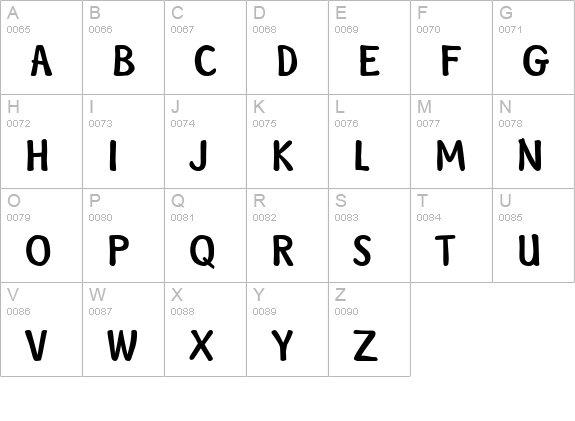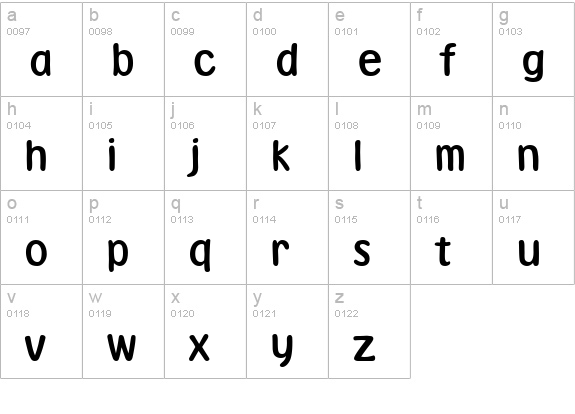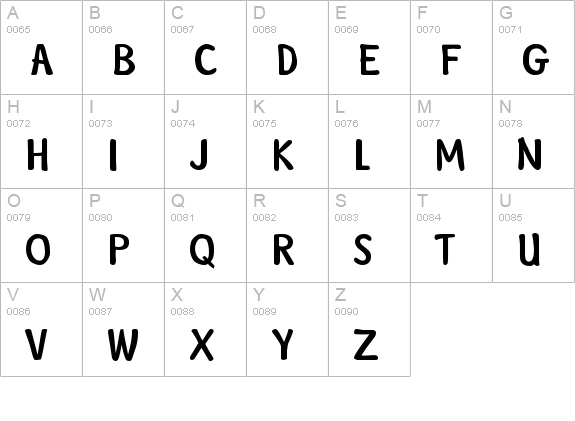
Pooh Font Details
Introducing the charming and whimsical Pooh font, a delightful typeface inspired by everyone's favorite bear. This playful and friendly font exudes a sense of warmth and nostalgia, perfect for adding a touch of sweetness to your designs. Whether you're creating invitations, greeting cards, or children's book illustrations, Pooh font is sure to bring a smile to your audience's face. Best of all, Pooh font is available for free download at FontsMarket.com. Embrace the playful spirit of this endearing font and let your creativity soar with Pooh font today!